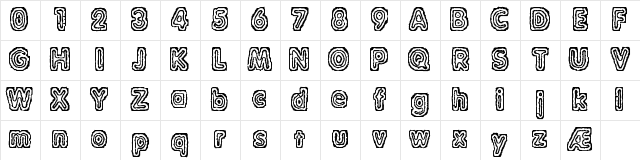
Complete Raydiate BRK Regular glyph index. Displaying only characters natively supported by Raydiate BRK Regular font.
Raydiate BRK is a composed and adaptable typeface that performs quietly and consistently across a wide range of design contexts.
Who designed the Raydiate BRK Regular font?